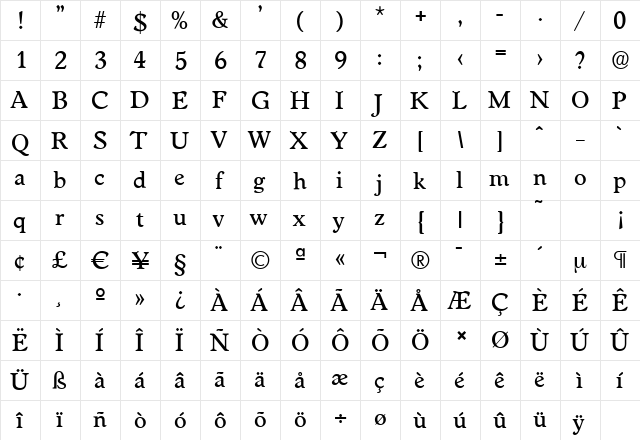
WorcesterSerial-Medium Regular Font Preview
WorcesterSerial-Medium Regular
Design Context for WorcesterSerial-Medium Typeface
WorcesterSerial-Medium takes a measured approach to typography — its balanced proportions and neutral character make it a reliable workhorse for both digital and print work.